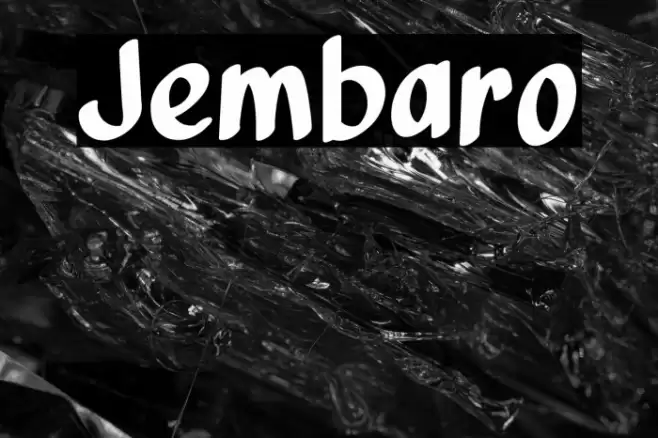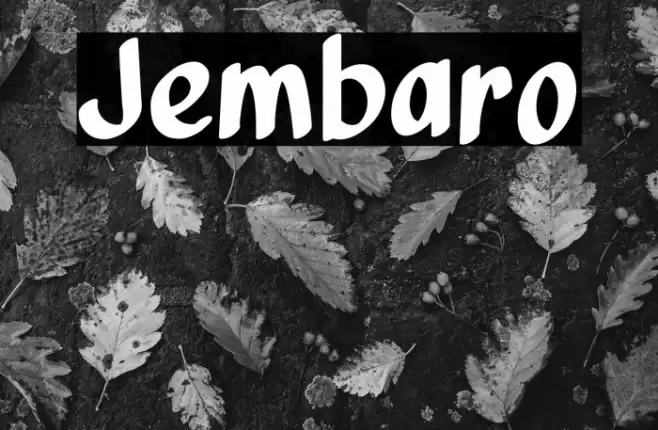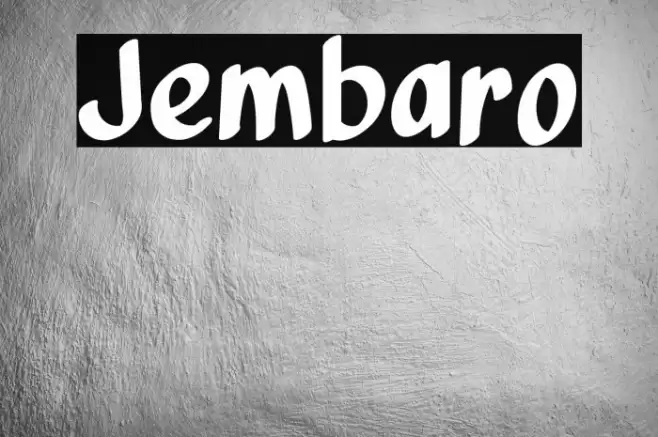
Jembaro Font
Jembaro Description
This font features a playful and dynamic handwritten style, characterized by its bold and slightly irregular strokes. The letters have a casual, friendly appearance, with a slight slant that adds to their energetic feel. The uppercase letters are bold and prominent, while the lowercase letters maintain a consistent flow, enhancing readability. The numbers and special characters are crafted with the same lively touch, making them suitable for a variety of creative applications. The overall design exudes a sense of fun and spontaneity, making it ideal for projects that aim to convey warmth and approachability.
A playful, bold handwritten font with a dynamic and friendly style from Uncategorized fonts.
- Proposed Projects: Ideal for greeting cards, children's books, playful branding, and social media graphics.
- Overall Style: Playful
- Use Case: Logos, Headlines, Posters